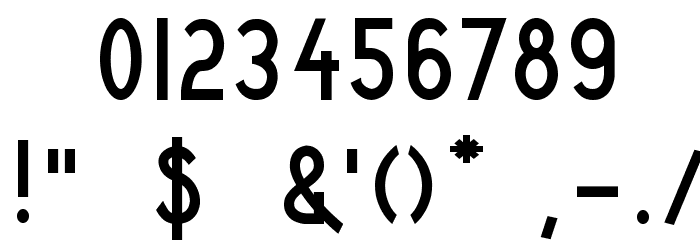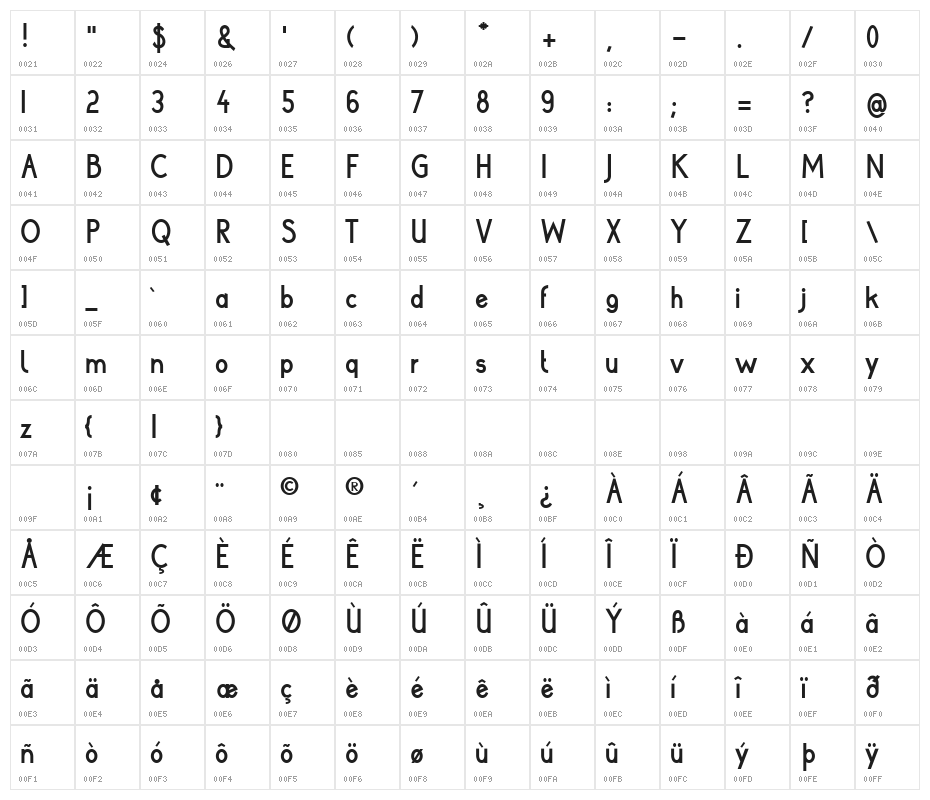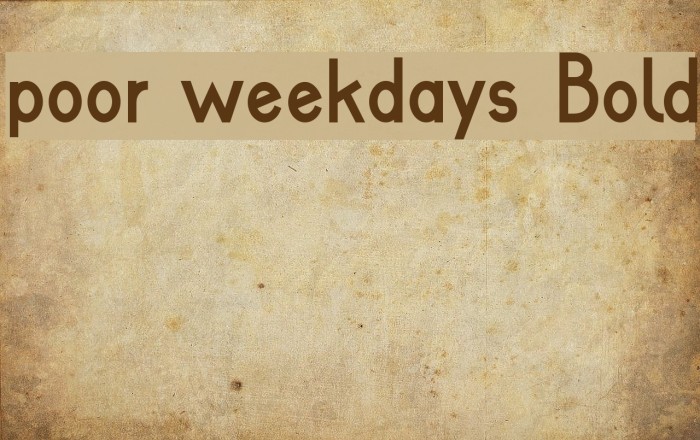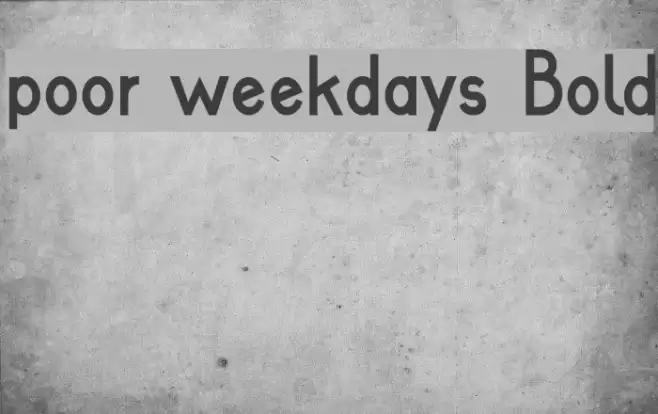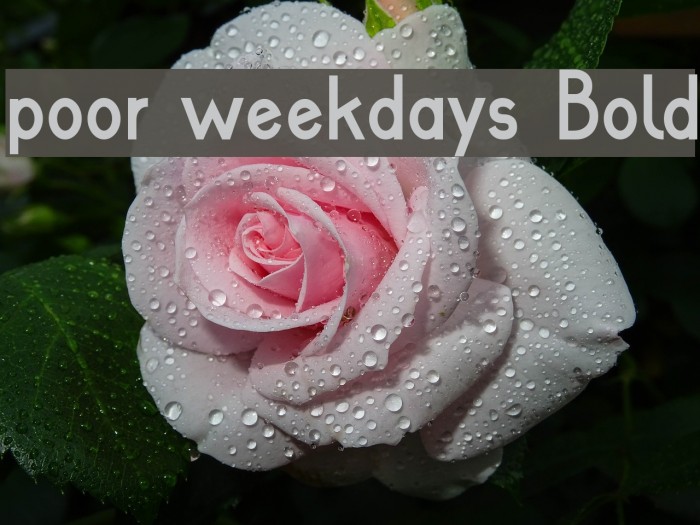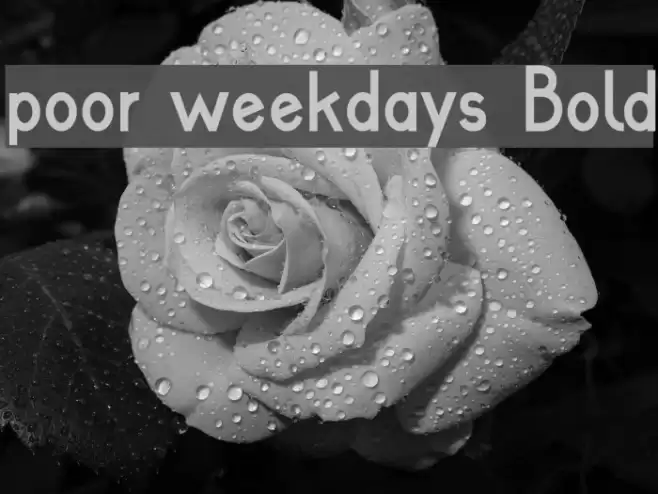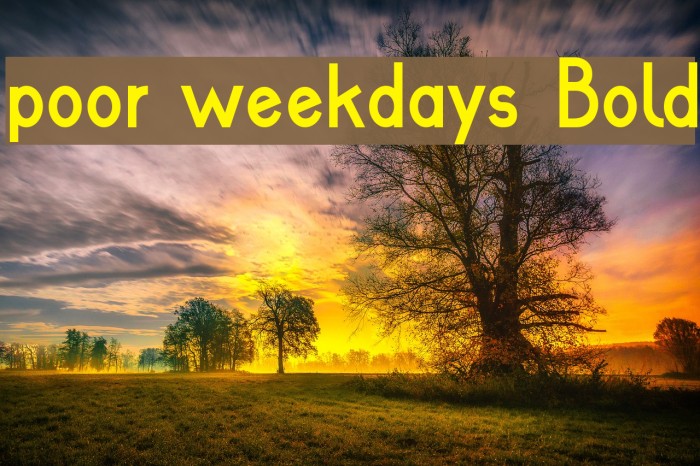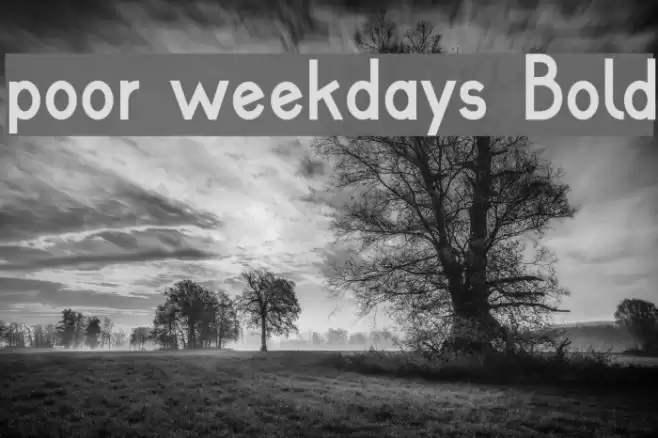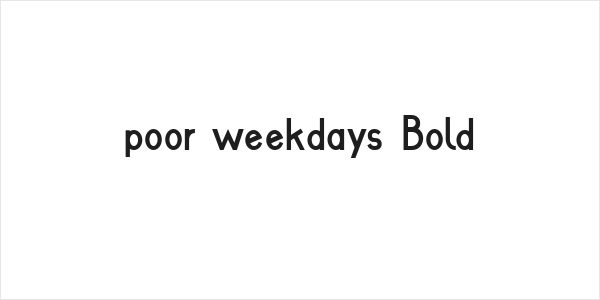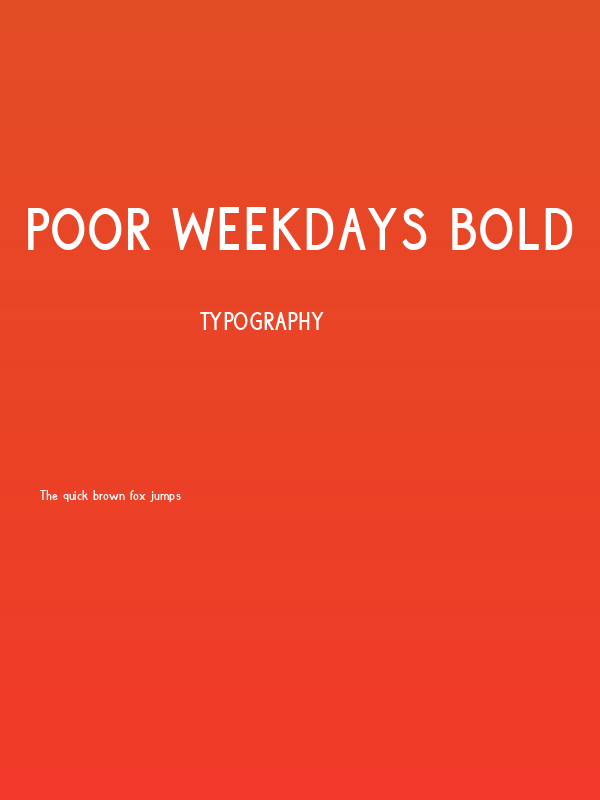
poor weekdays Bold Font
poor weekdays Bold Description
This font features a clean and modern sans-serif design with uniform stroke widths, creating a bold and impactful appearance. The characters are well-defined with a geometric structure, offering a contemporary look that is both versatile and easy to read. The uppercase and lowercase letters maintain a consistent style, while the numerals and special characters complement the overall design. The font's simplicity and clarity make it suitable for a wide range of applications, from digital to print media.
| Proposed Projects | Ideal for branding, advertising, headlines, posters, and digital media where a strong and modern presence is needed. |